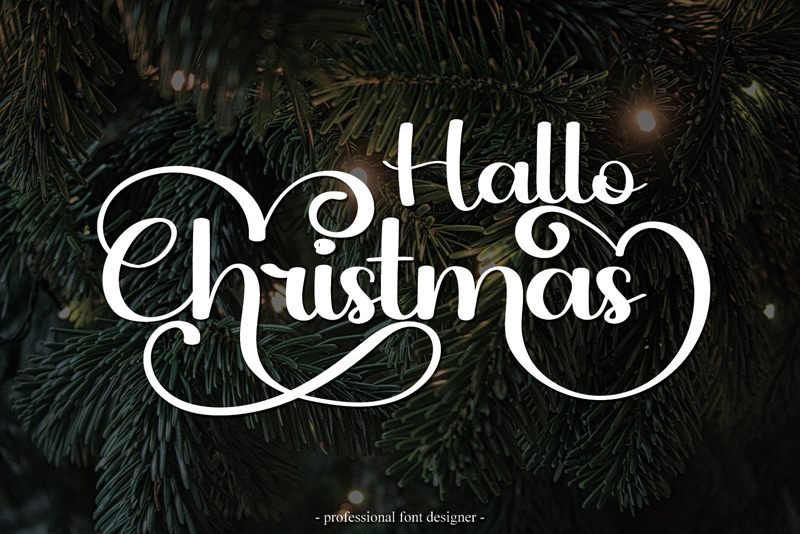
Hallo Christmas is a chic, refined script font that emanates sophistication and elegance. Its stylish alternates and ligatures make this font the perfect match for any project. Attention : Hallo Christmas handwriting Font is prohibited to use this font for commercial purposes or for profit without the permission of the author/admin, without being known to use this font without permission, will be subject to sanctions 5x the specified price. This font is used only for demos (Demo license) If you want to use this font for commercial use please contact email: erikluluk0@gmail.com or click the link below: https://www.creativefabrica.com/product/hallo-christmas/ref/745146/ If you want to see more other fonts, please click:https://www.creativefabrica.com/designer/erik-studio/ref/745146/ Any donations are very appreciated. Paypal account for donation: https://paypal.me/eriksupriyant thanks. |